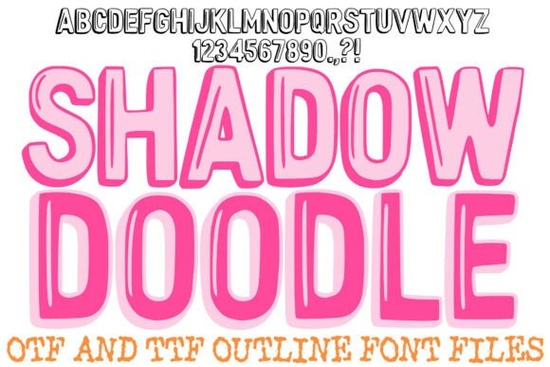
If you're looking for a display font that feels warm, handcrafted, and instantly recognizable, the Shadow Doodle Font is a great fit. It’s designed with care to bring a friendly, slightly playful vibe to your projects perfect for teachers, small creators, or anyone who wants their designs to feel personal without losing clarity.
What Makes This Font Stand Out?
Unlike many digital fonts that feel stiff or overly polished, the Shadow Doodle Font has a human touch. Each letter is drawn with thick, clean lines that mimic hand-drawn work but stay sharp and readable. The subtle drop-shadow on the right side of every character adds depth just enough to make the text pop without needing extra design steps.
You’ll appreciate how well it works across different formats. Whether you’re printing classroom materials, creating social media posts, or designing labels for handmade goods, this font holds up beautifully in both digital and print applications.
Why It Works Across Projects
- Easy to read, even at small sizes – The bold black outlines ensure legibility, which is key when working with kids’ content or quick-to-scan graphics.
- Works on any background – Thanks to its high-contrast silhouettes, your text stays visible whether it's over pastel colors, busy patterns, or dark textures.
- Minimal setup required – The built-in shadow means you don’t need to manually add effects in Photoshop or Canva.
- Only capital letters included – This keeps the design clean and consistent, ideal for headings, titles, and branding elements.
The font includes standard punctuation like ?, !, and ., plus numbers so you can use it for everything from birthday invites to product tags and classroom signs.
Where You Can Use This Font
This isn’t just another pretty font it’s practical. Teachers love it for worksheets and bulletin boards because it feels inviting and energetic. Crafters use it for digital scrapbooking layouts, stickers, and printable party kits. Small businesses and print-on-demand sellers find it useful for logos, packaging, and social media banners.
It also fits naturally into seasonal projects. For example, try pairing it with a bright color palette for summer-themed invitations, or combine it with soft pastels for back-to-school materials. The playful yet professional look makes it suitable for brands targeting families, educators, or creative communities.
How It Compares to Similar Fonts
If you’ve used other playful display fonts before, you might notice something special about the Shadow Doodle Font: it doesn’t feel cluttered. While some fonts rely heavily on exaggerated strokes or complex details, this one balances charm with simplicity.
Keep in mind that only uppercase letters are included, along with basic punctuation and numbers. This focus helps maintain consistency and keeps file size manageable.